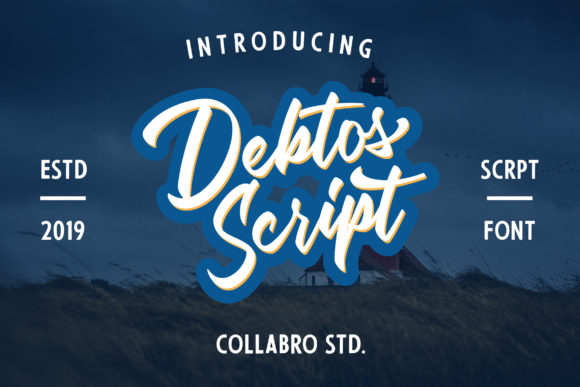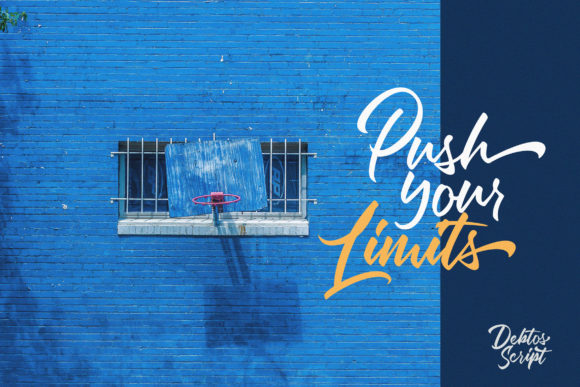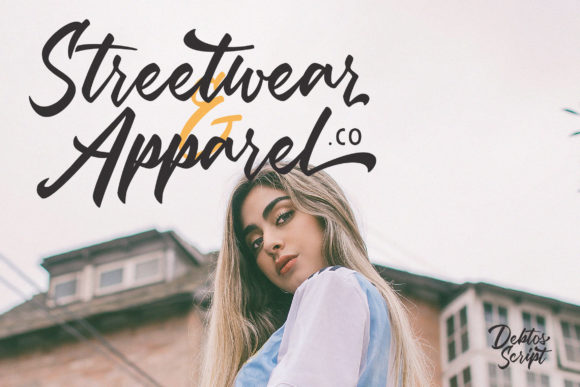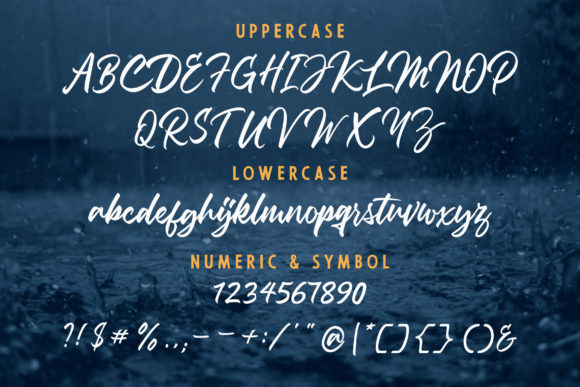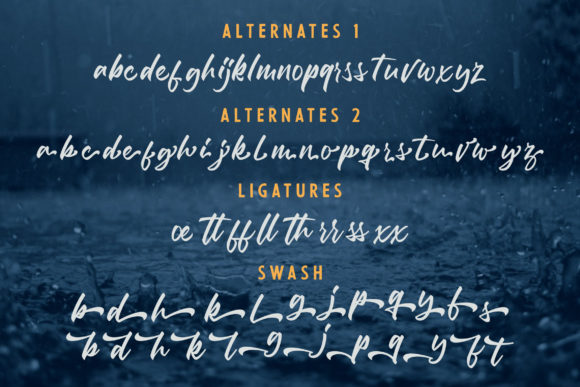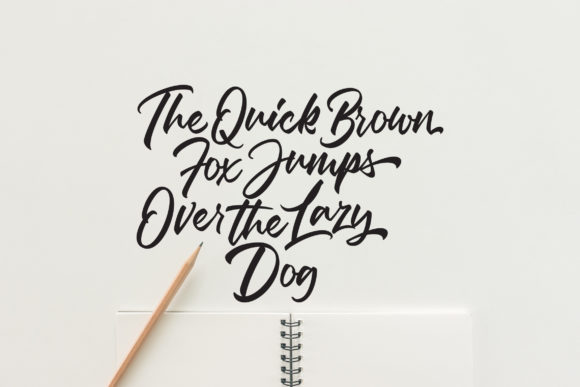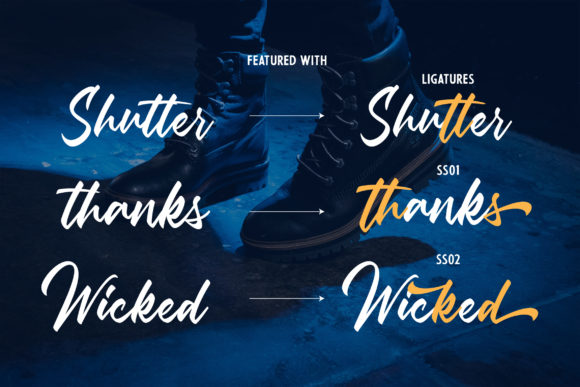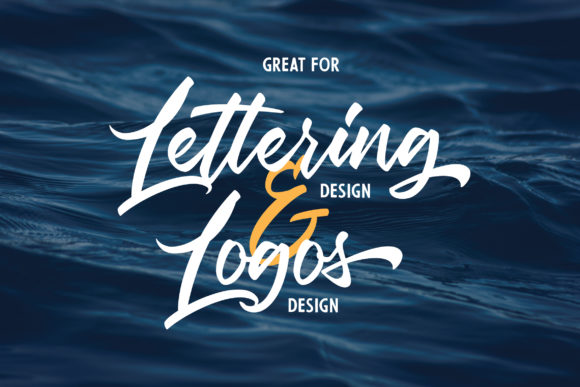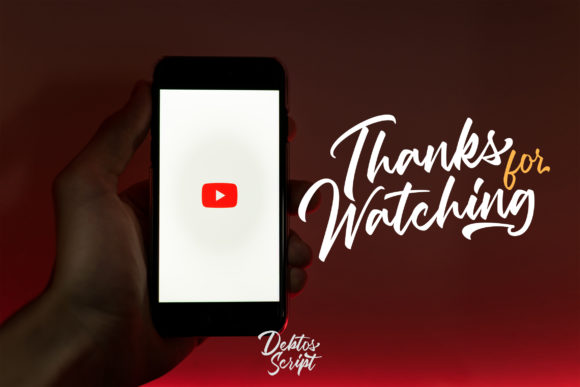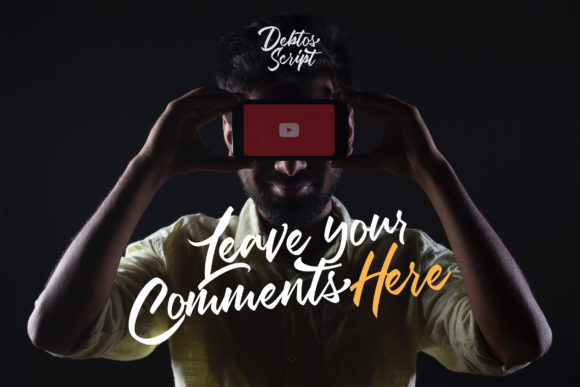
Debtos Font
About Debtos Font
The Debtos is an inspiring script font. It was handmade and was inspired by classic posters.
It can be used for logos, letterheads, posters, apparel, labels, and much more!